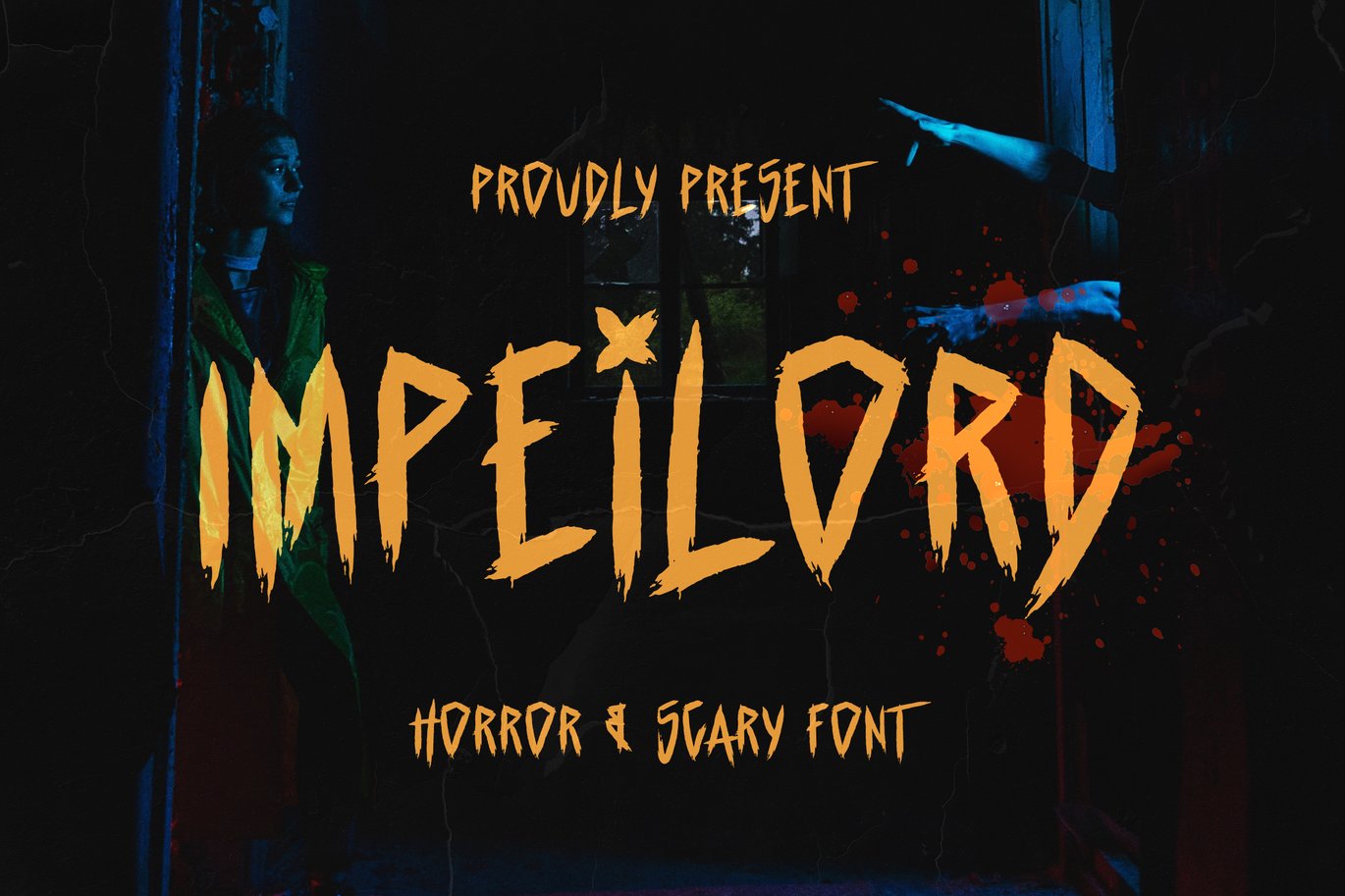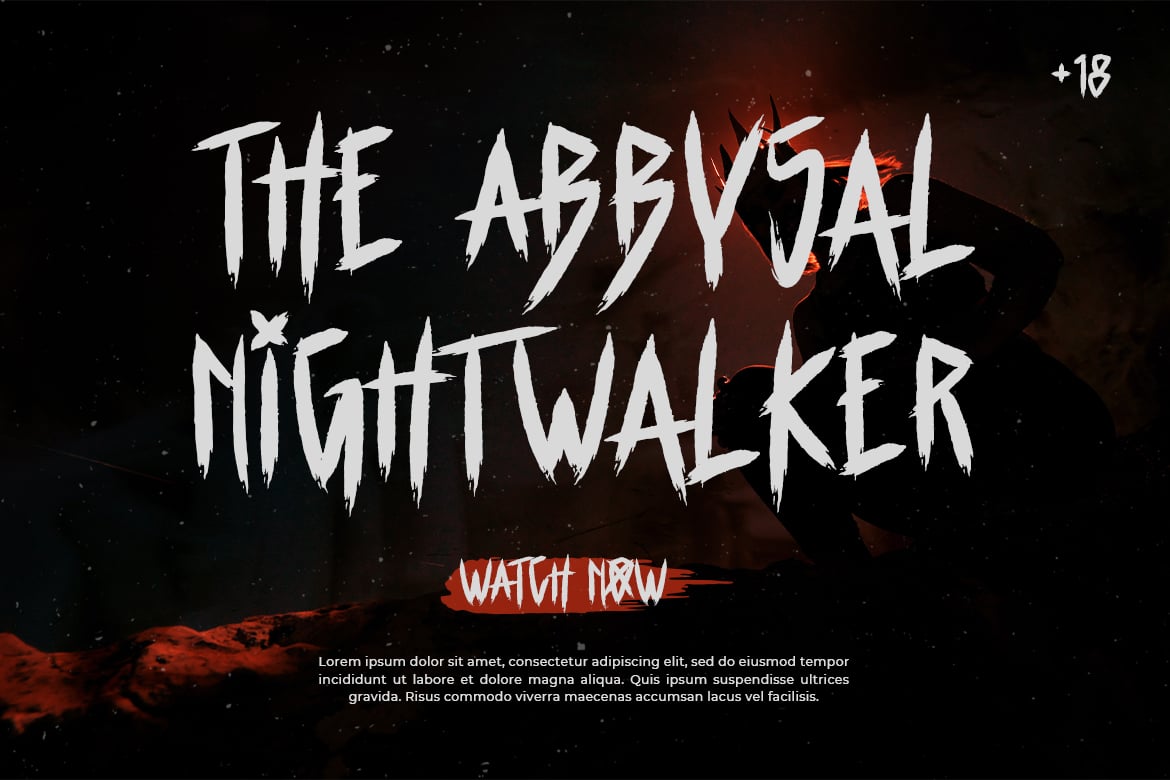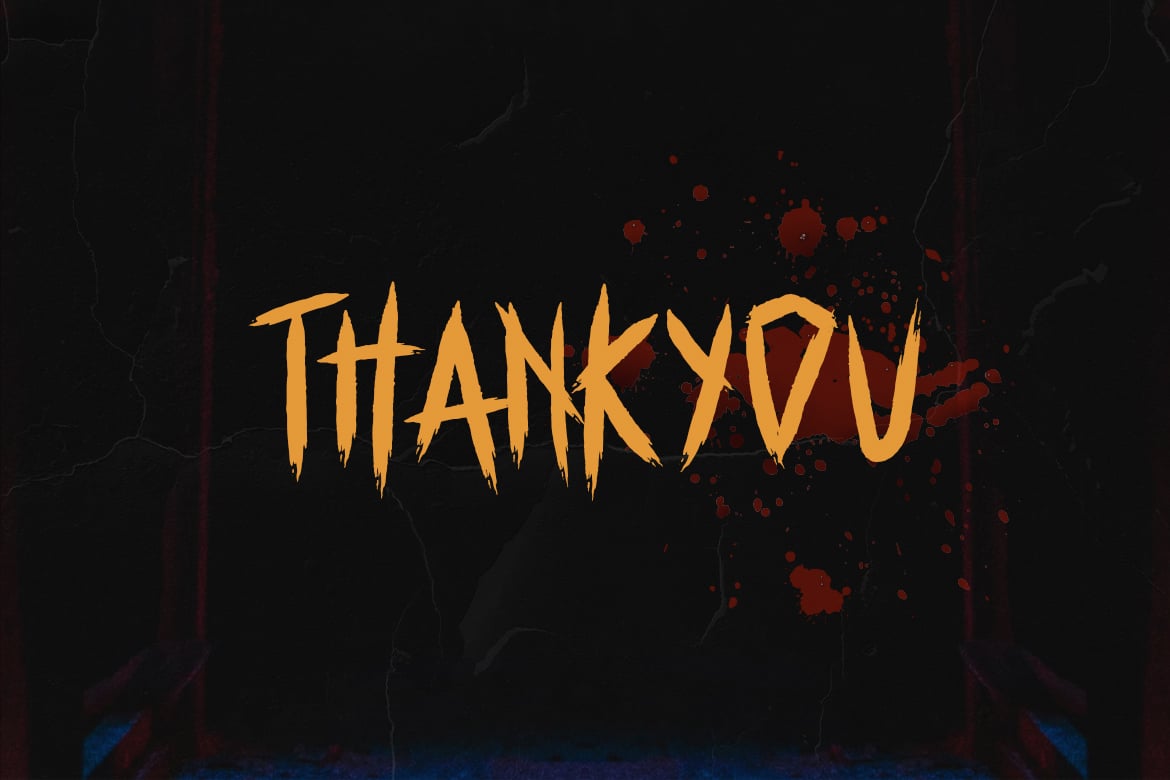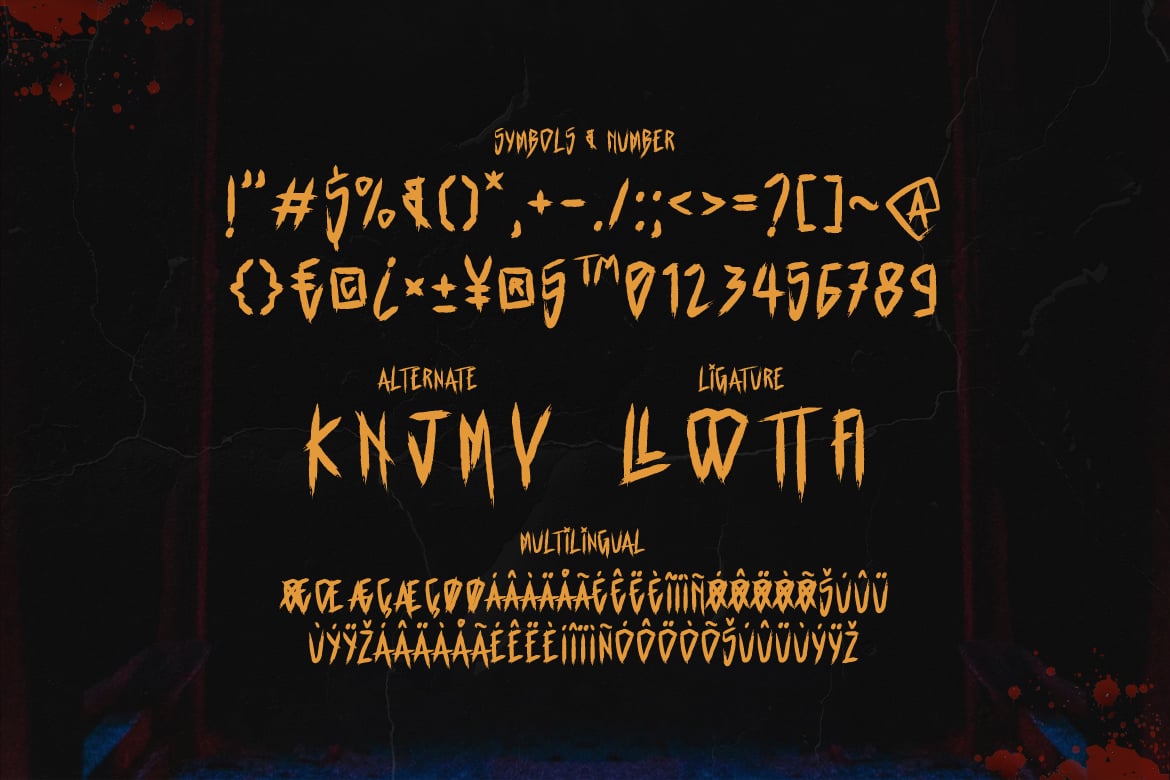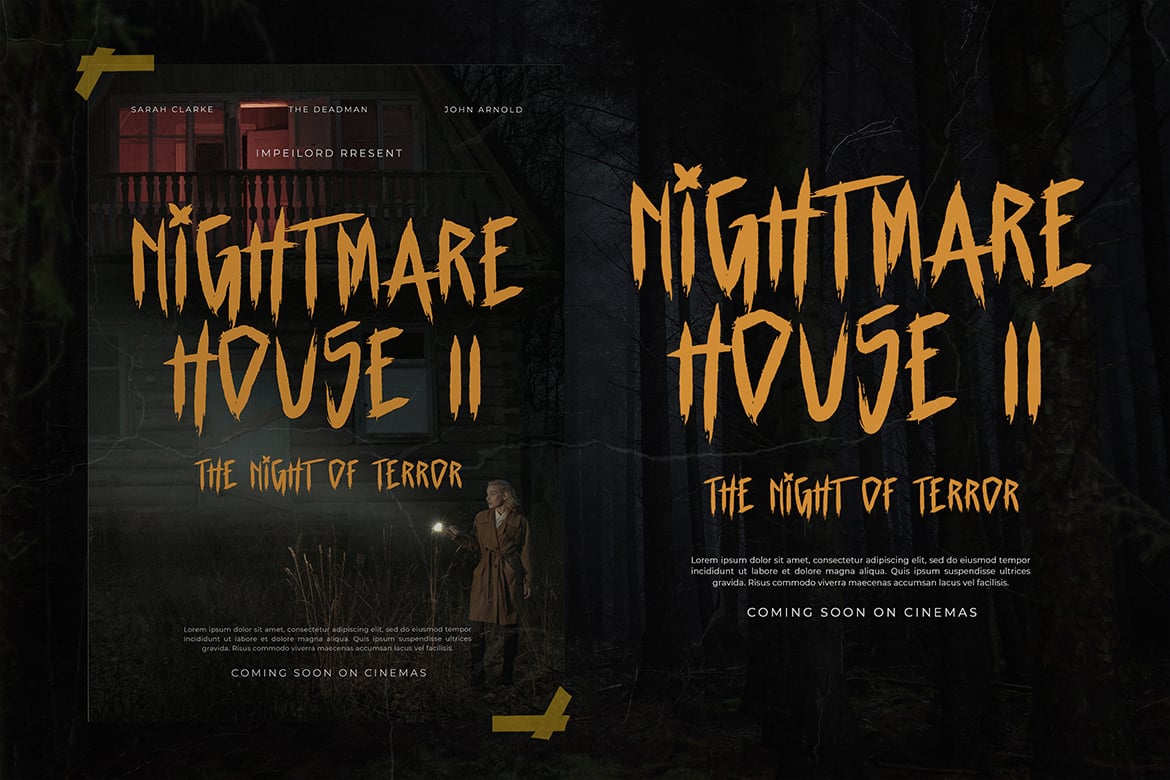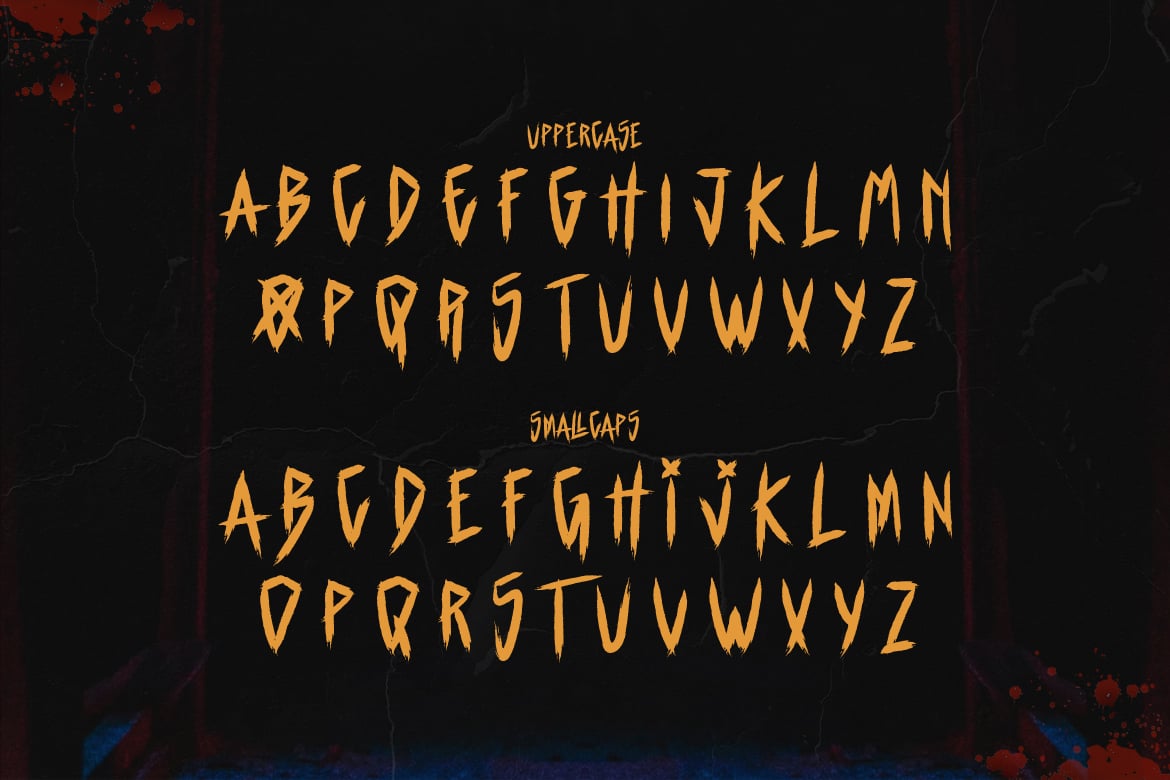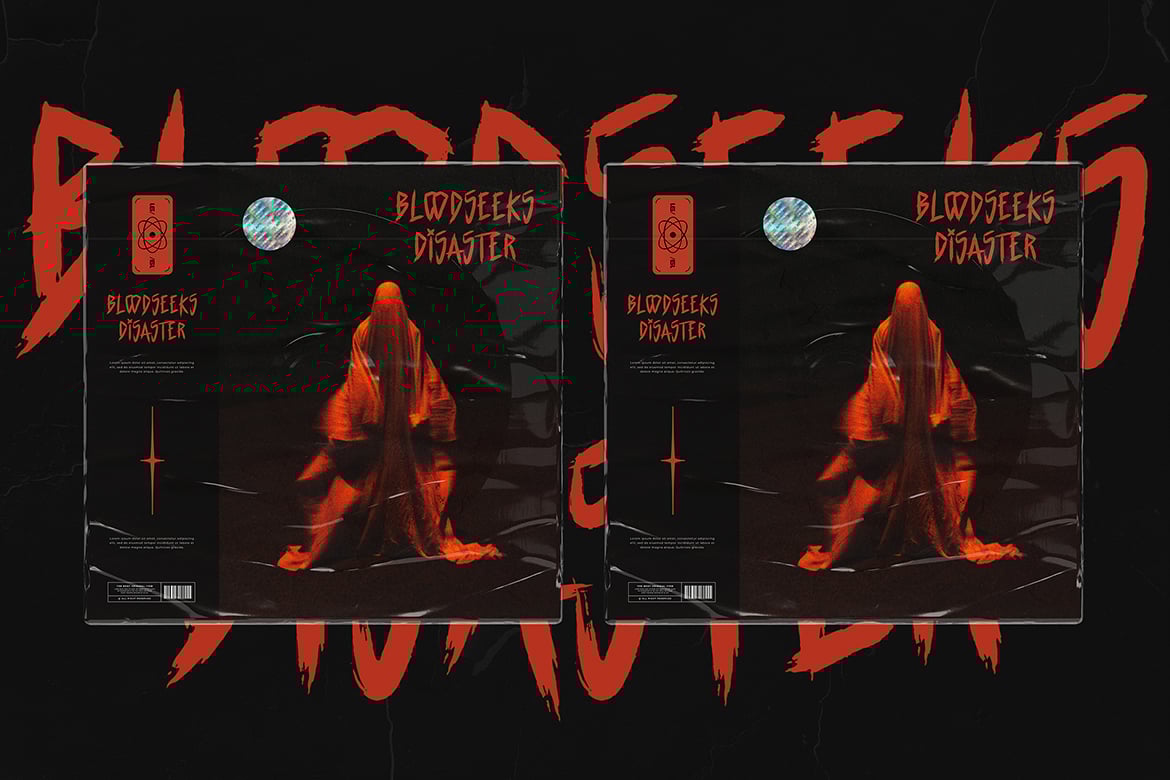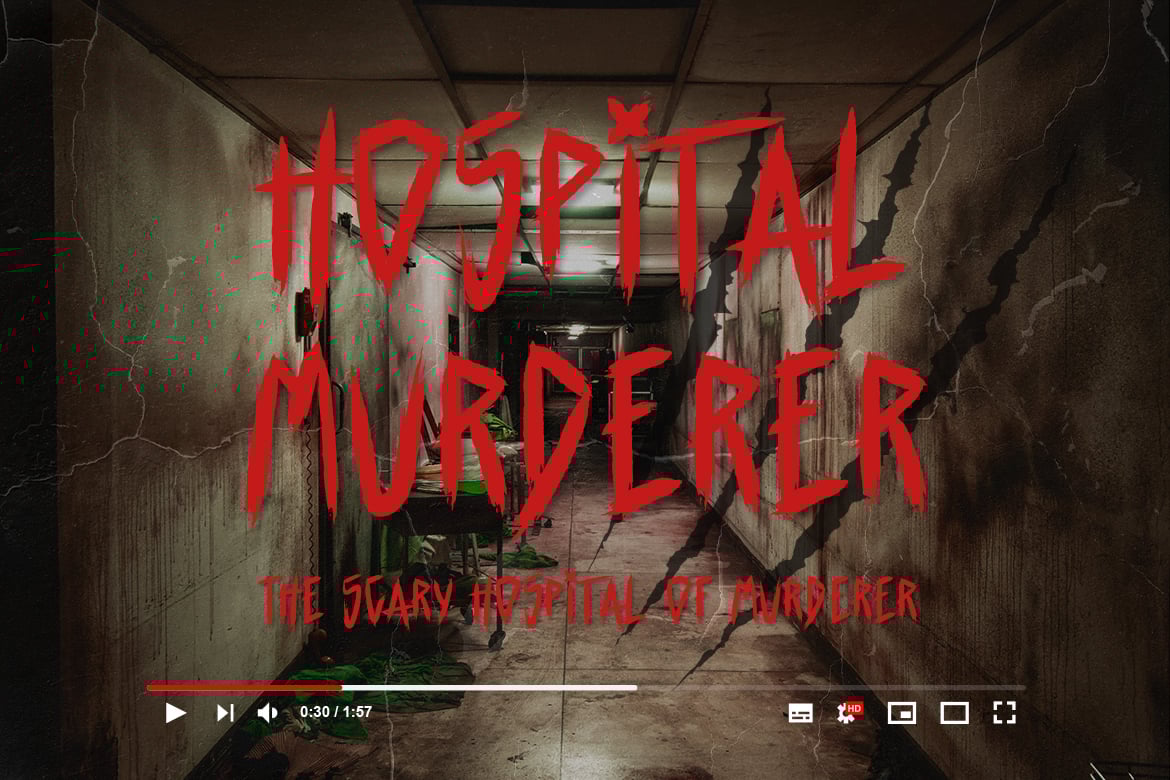
Impeilord – Horror and Scary Font
Looking to add a touch of horror and fear to your designs? Look no further than “Impeilord” – a horror and scary font that’s sure to send shivers down your spine.
With its jagged edges, twisted letterforms, and unsettling vibe, “Impeilord” is a font that’s perfect for creating a sense of dread and terror. Whether you’re designing a horror movie poster or creating graphics for a haunted house, “Impeilord” is the perfect font for the job.
Each letter is designed to look like it’s been scratched into the page with a sharp object, giving the font a sense of authenticity and realism that’s sure to make your designs stand out. And with its versatility and boldness, “Impeilord” can be used in a wide range of creative projects.